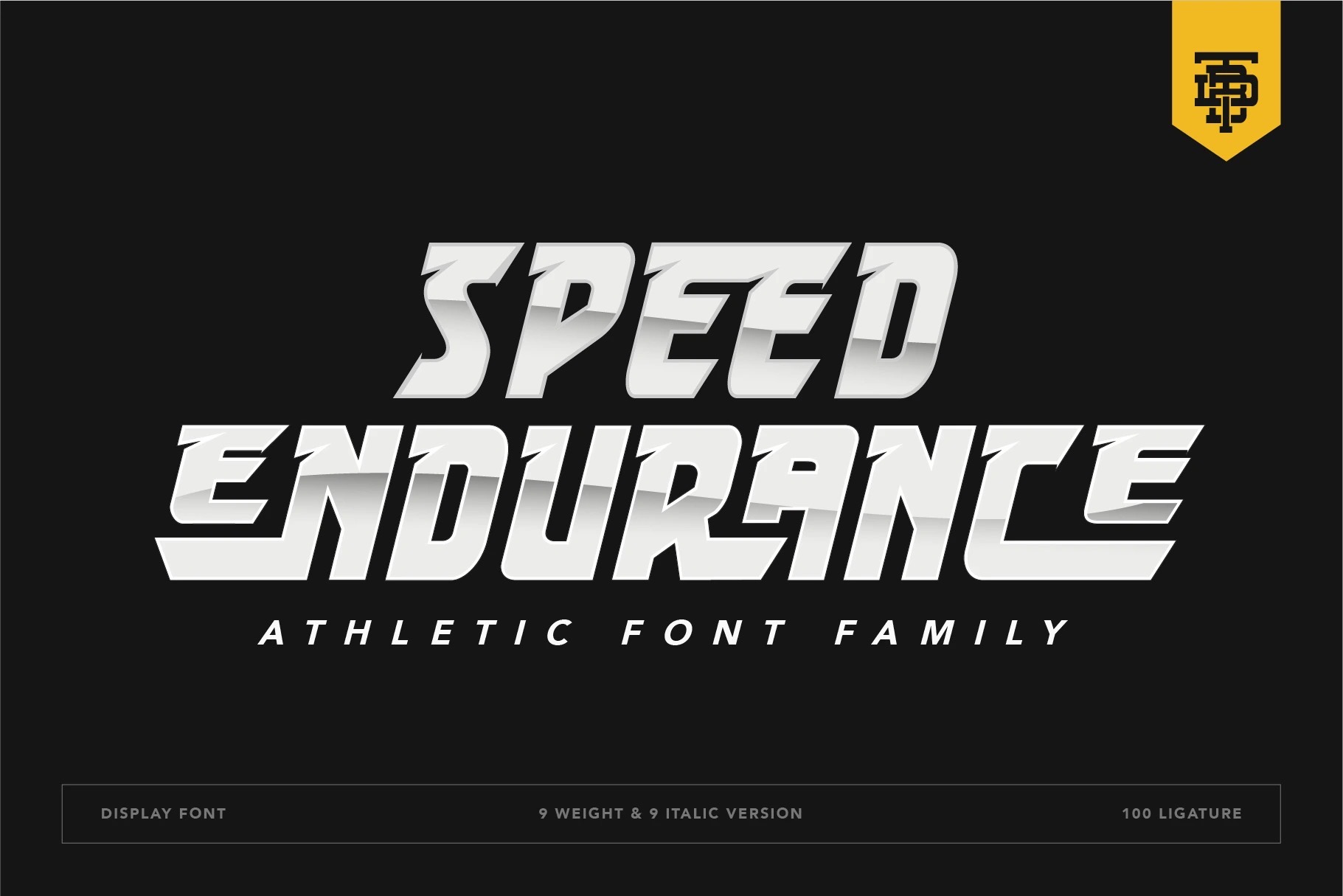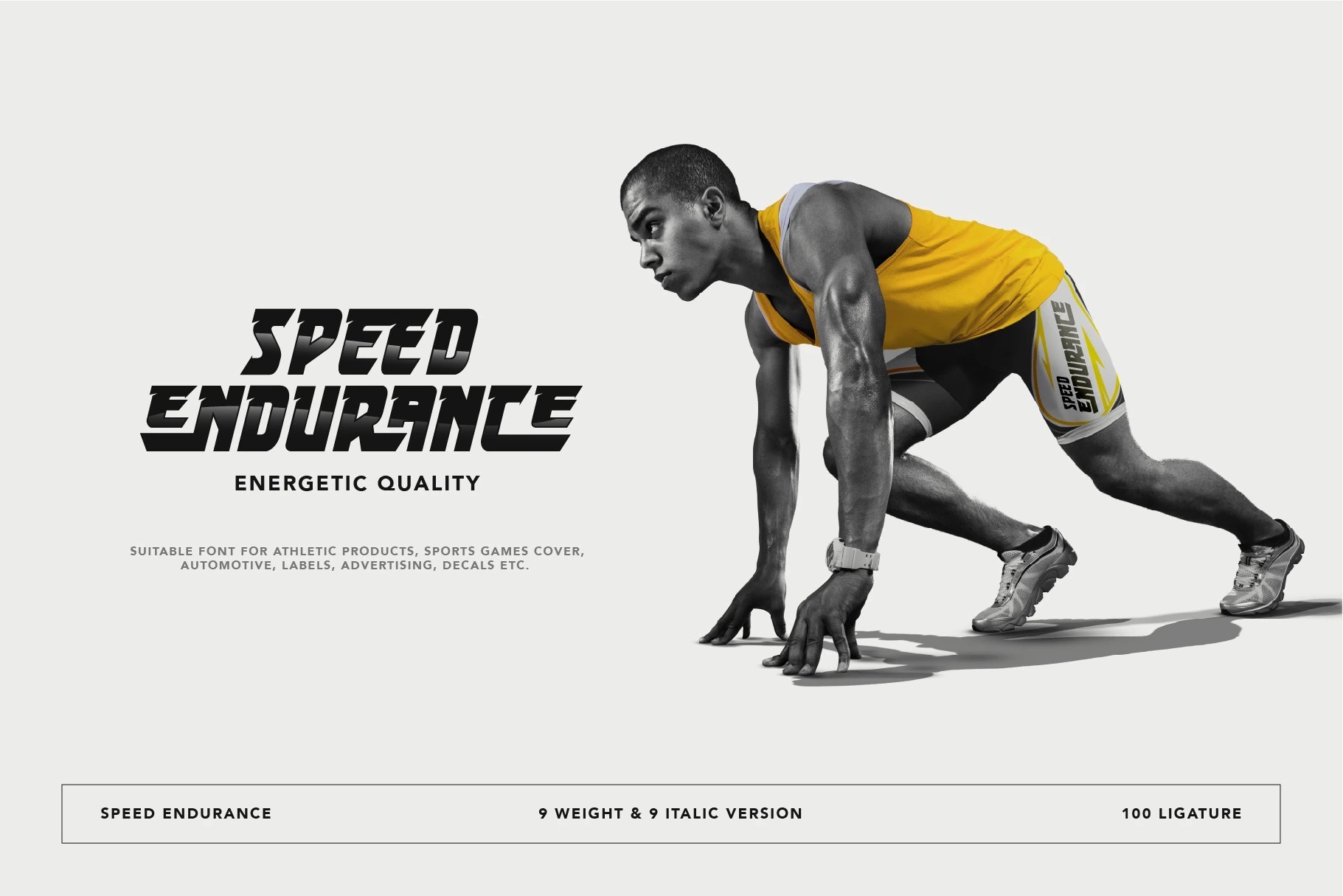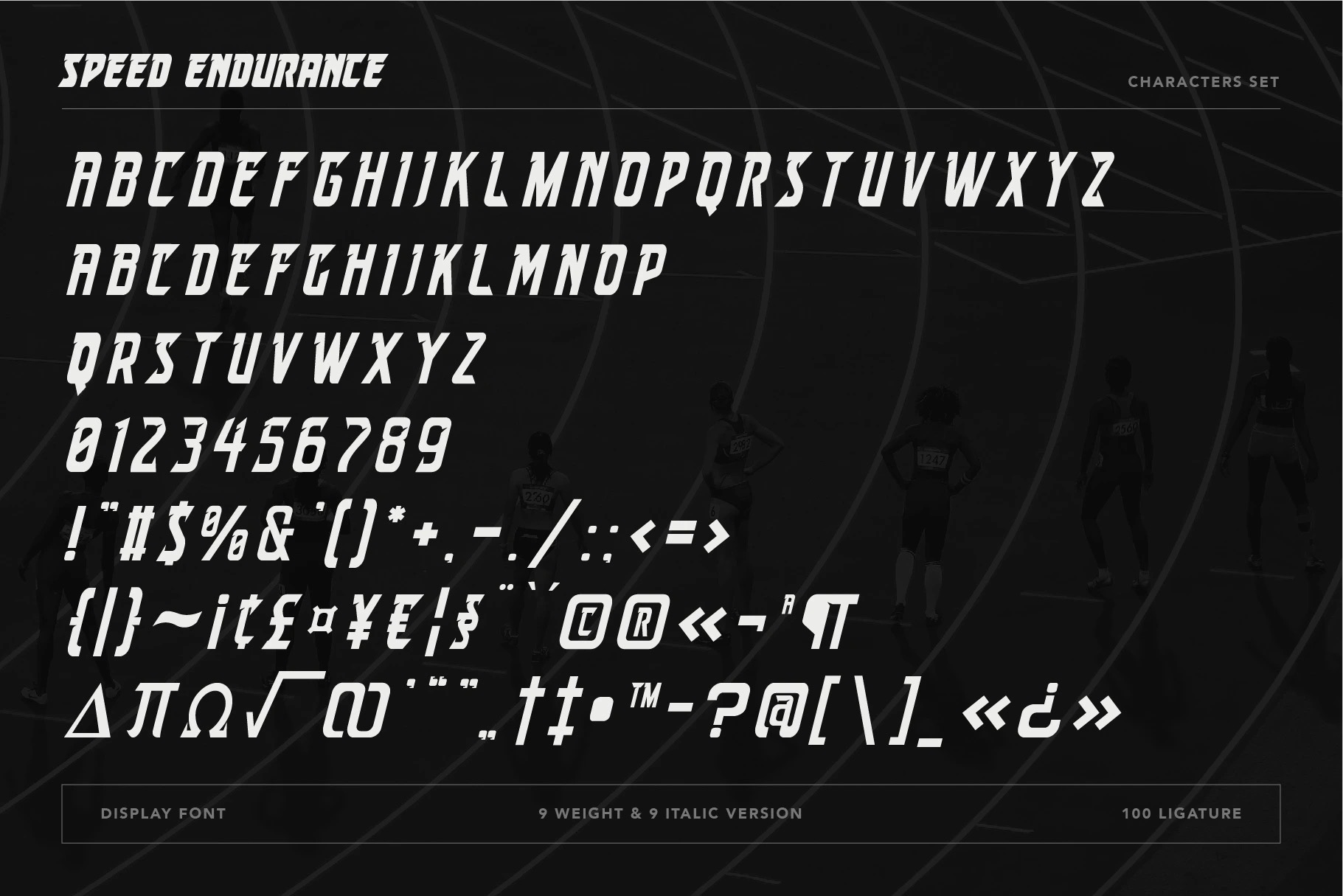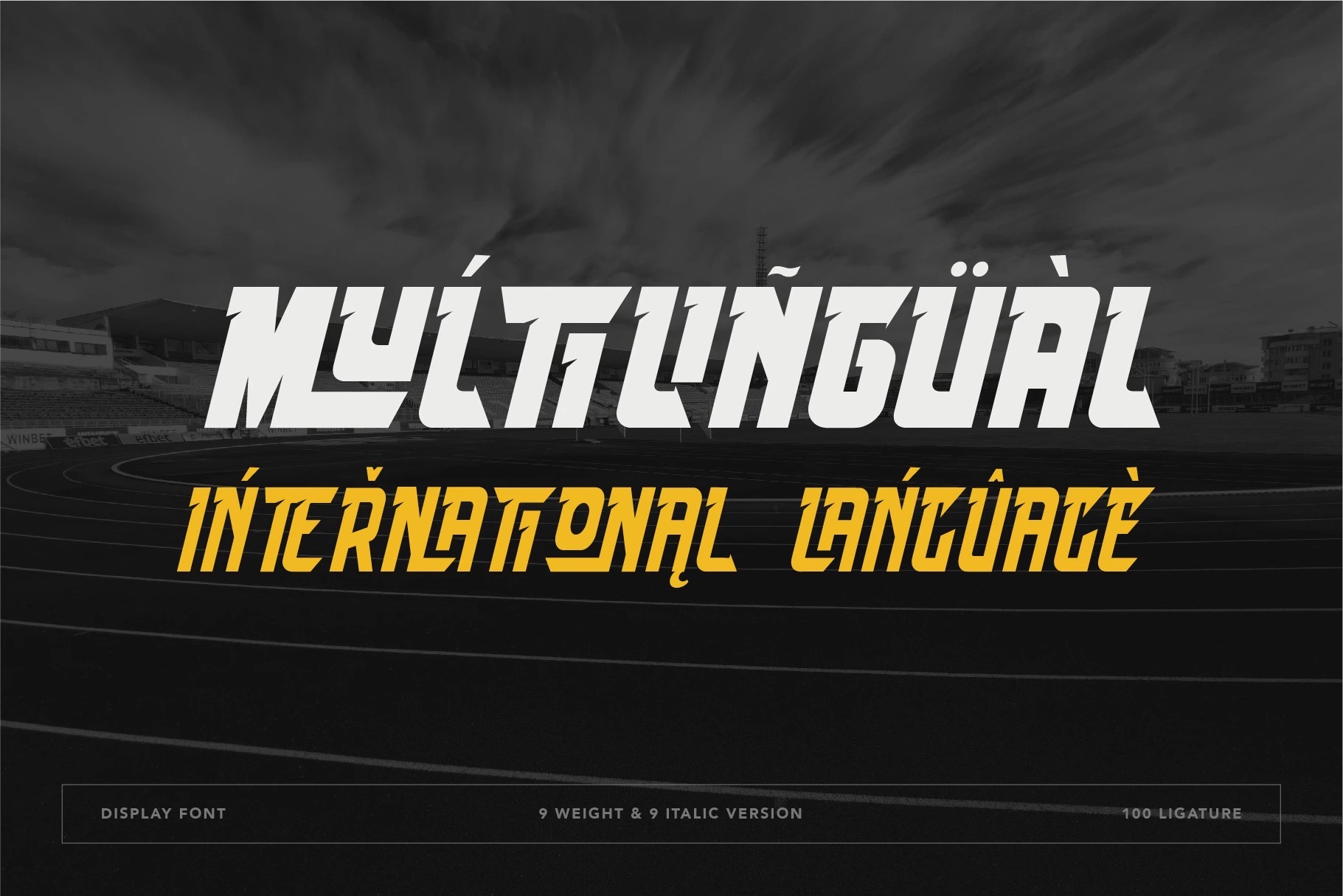
Speed Endurance
Speed Endurance is athletic font family, consists of energetic & sports looks; sharp lines with a verified tilt angle that will emphasize a modern style.
A perfect choice for athletic products, sports games cover, automotive, labels, advertising decals, etc.
This font perfectly suitable for design project with energetic and sport theme concept such as logotype, product tag, marketing material and etc.
• A – Z set (Uppercase & Lowercase)
• Number
• Punctuation
• Alternates
• Multilingual